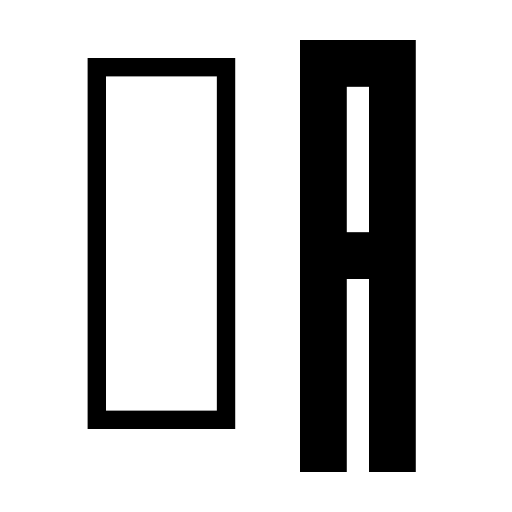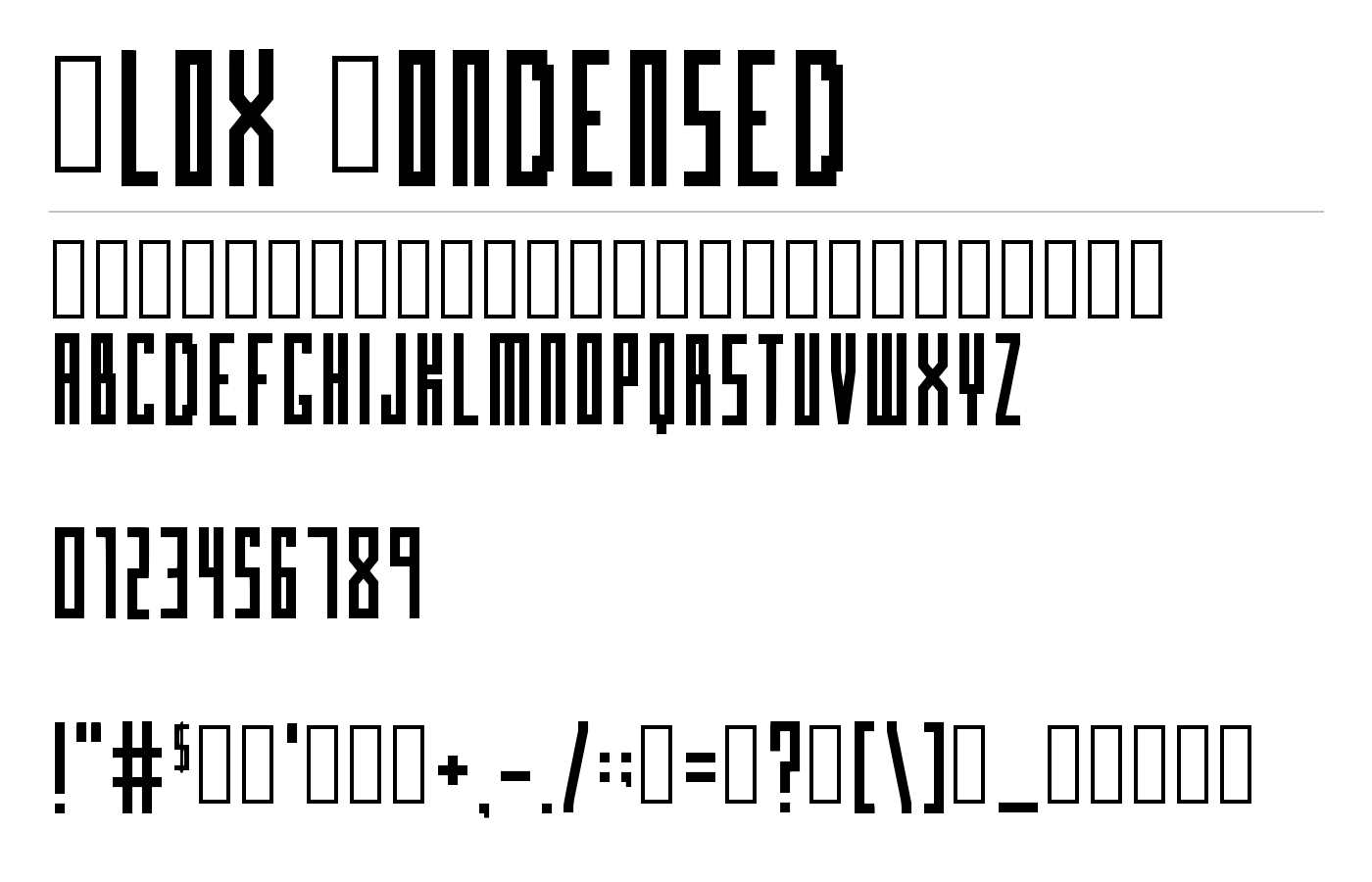
Blox Condensed is a bold, narrow sans serif font with a distinctly geometric and blocky style, characterized by its tall x-height and uniform stroke weight. Its sharp, angular letterforms give it a strong, modern, and slightly industrial feel, making it ideal for headlines, logos, and branding that require a striking, condensed display typeface. This font works well in designs that need a clean yet powerful presence with a contemporary edge.
Blox Condensed Font